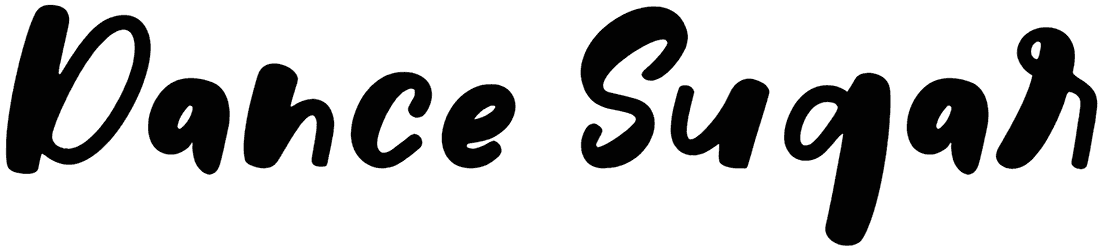
Dance Sugar Font
Want to have more flavorful content? We have the most adorable one for you. Cook better invitations, headers, branding, banners, or album covers by having this well-designed material. With a sweet design, start the aesthetic effects of the Dance Sugar font to step up your projects.
This handwritten font works perfectly for fitting the bill in all types of graphics due to its romantic trace. Thanks to our website, get all creative and make yours.